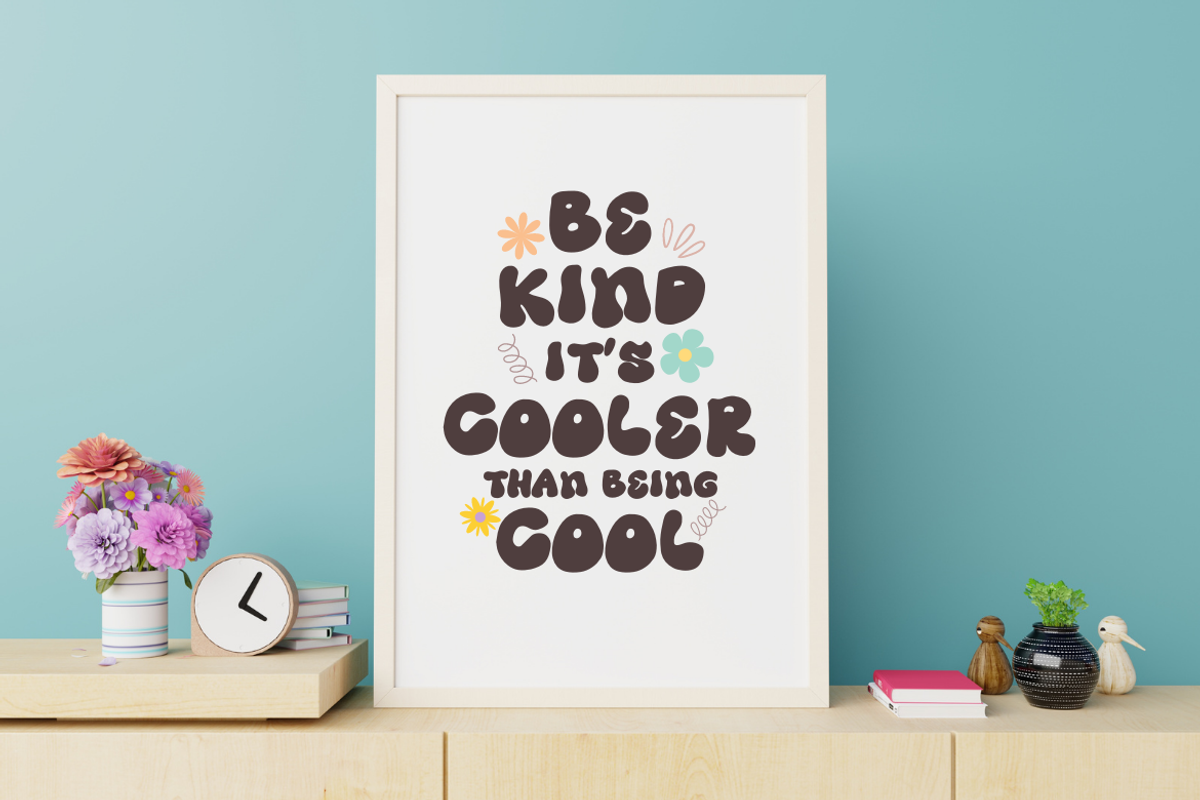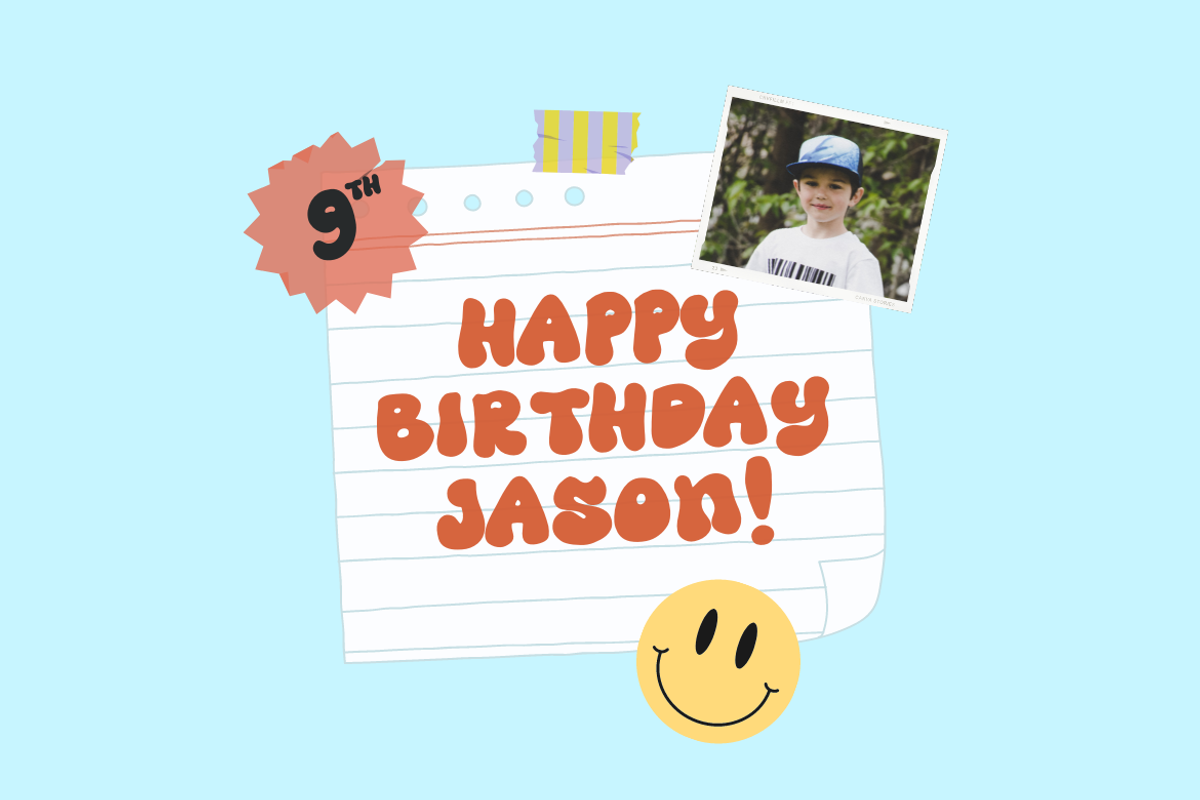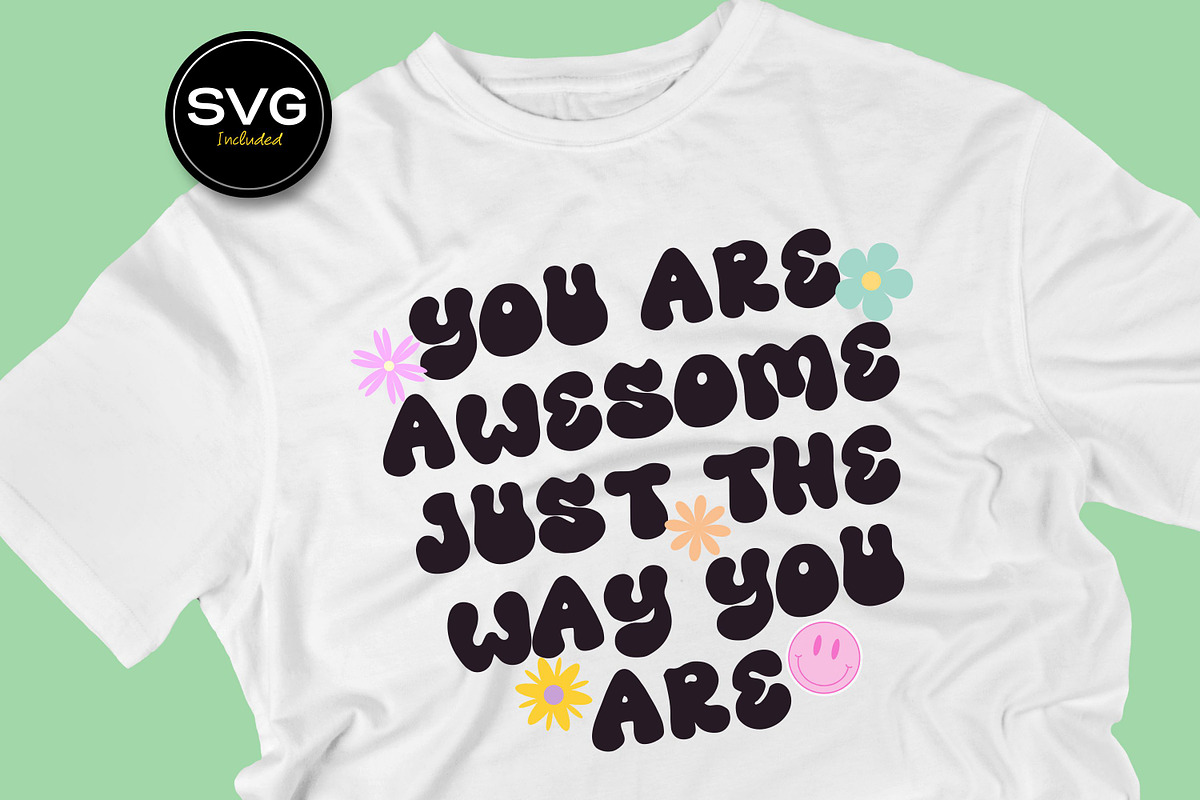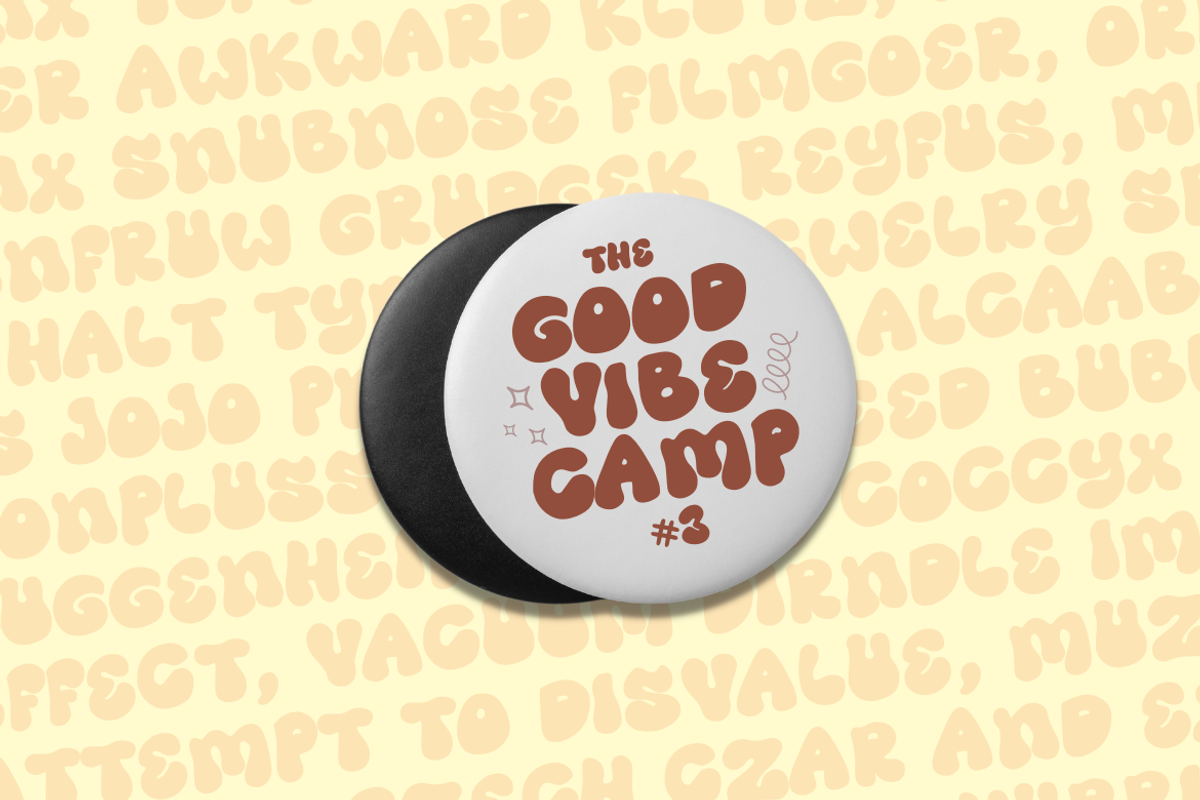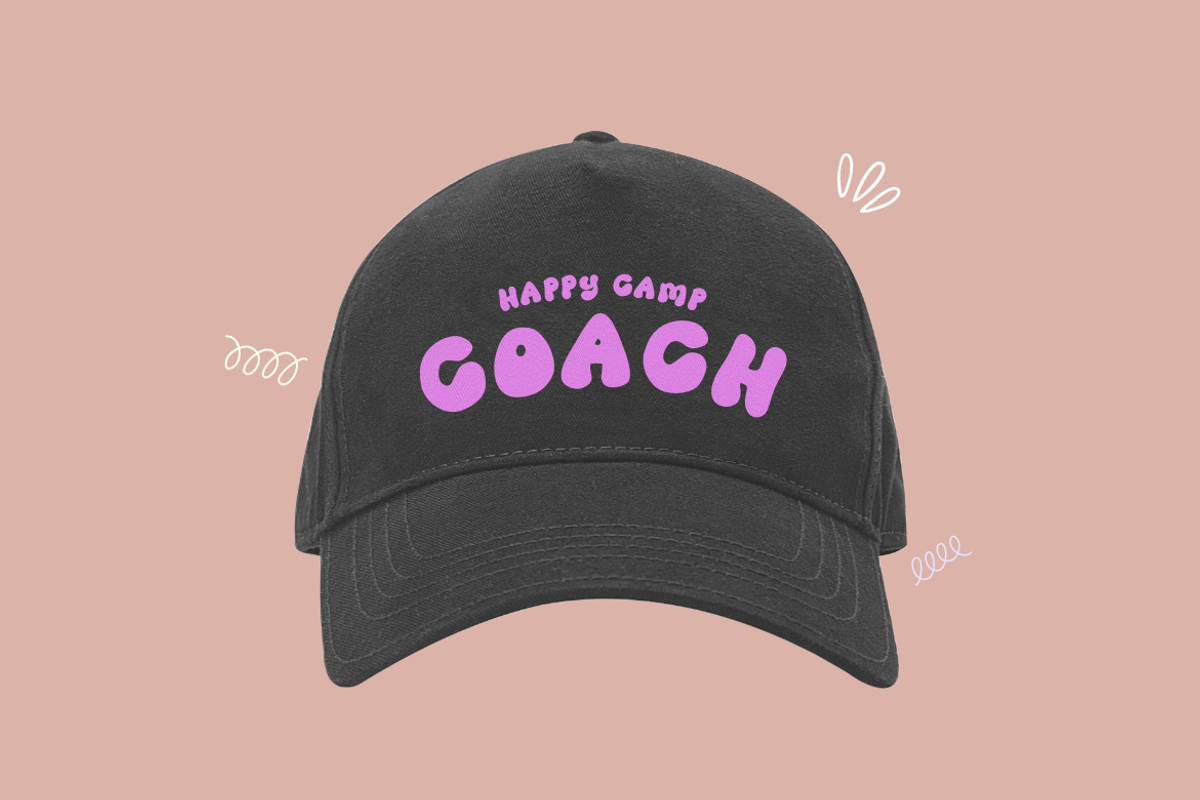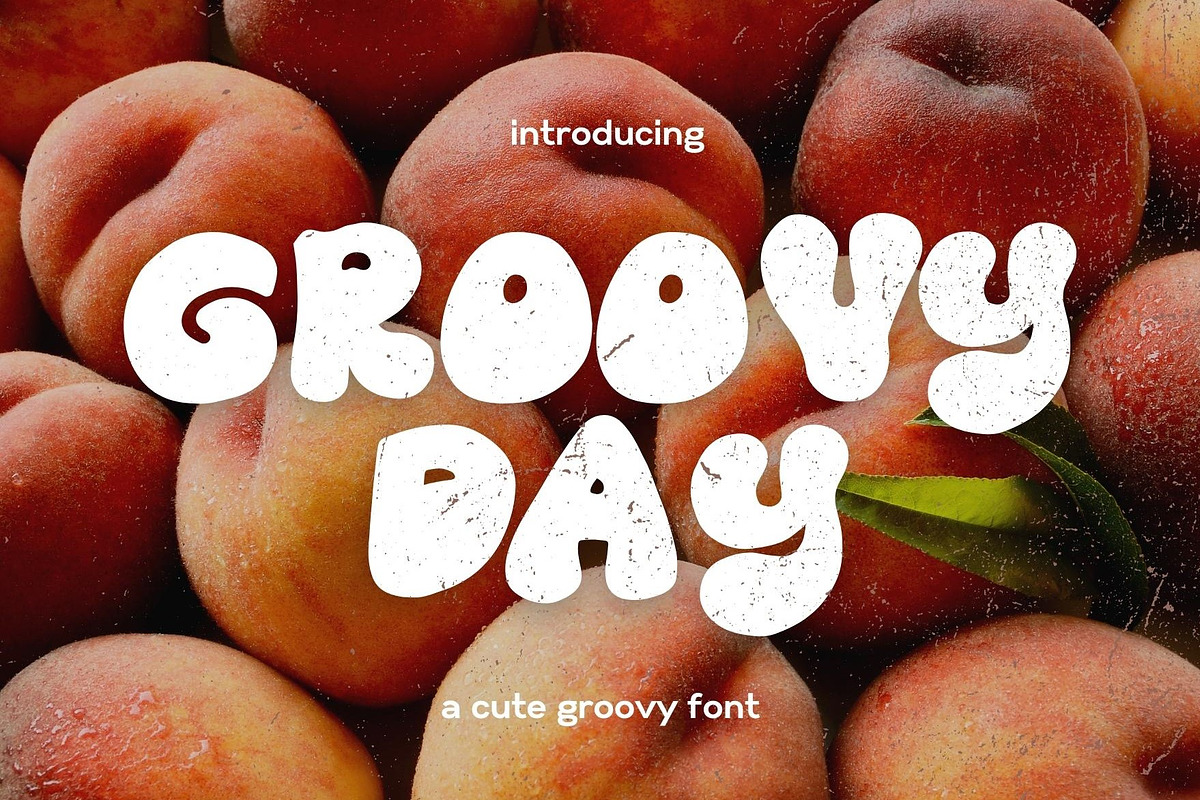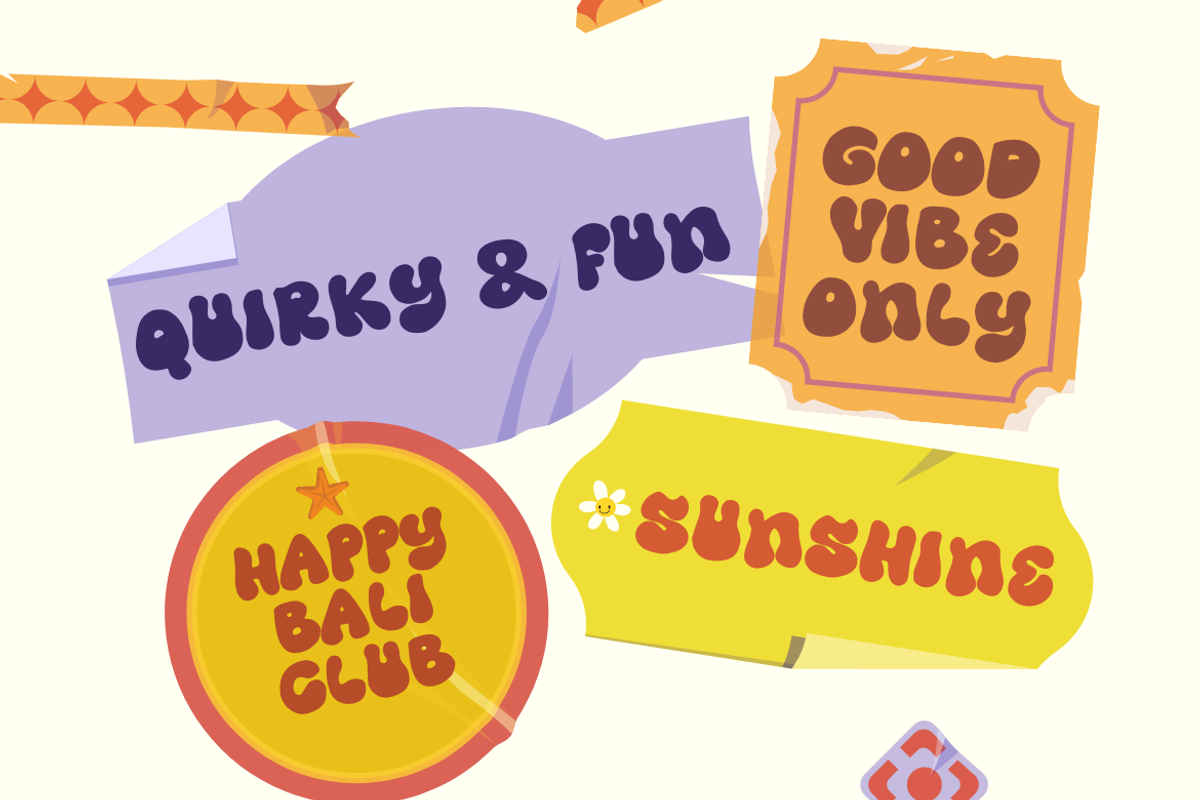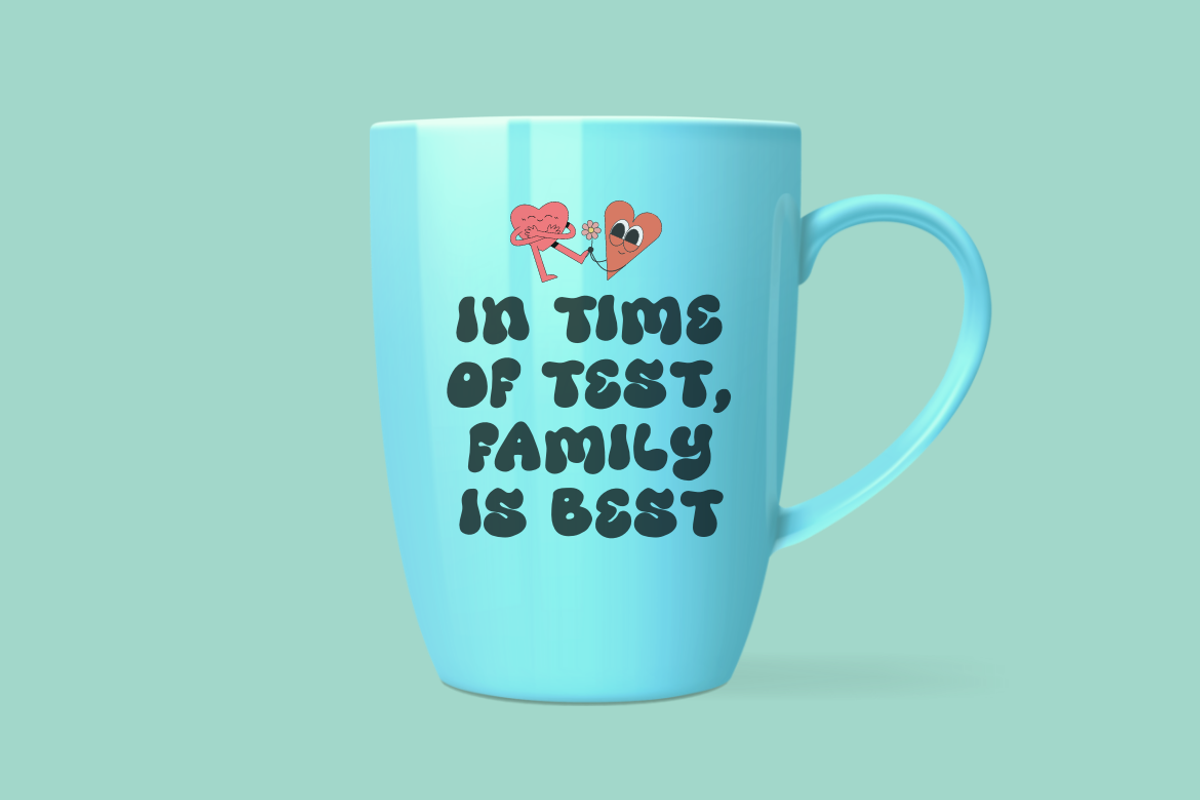
Groovy Day - Liquid Retro Font
Groovy Day Handwritten font is a mixture of retro modern with quirky look. The natural stroke creates cute & casual feel that will be perfect for various project. You can combine this font More Sugar font to create playful layout, solid headline, strong title, logos and many more!
With bold and playful looks, this font will be best suitable for books cover, poster, logo, tshirt, craft & merchandise, kids book, wall sign, and many more related projects.